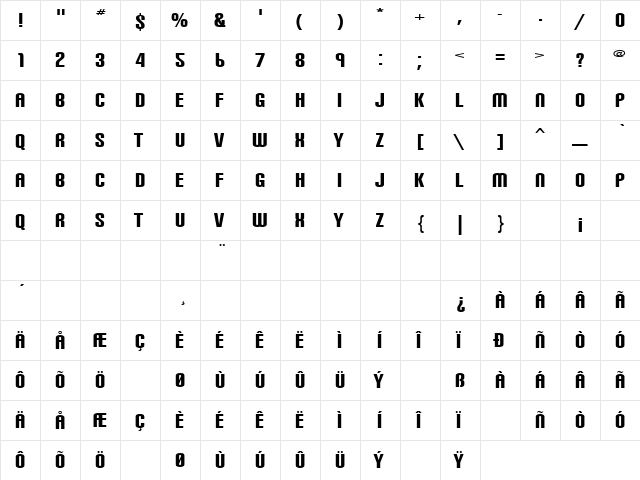
Carbon Block Regular
| Foundry | Larabie Fonts |
Design Context for Carbon Block Typeface
Carbon Block is a composed and adaptable typeface that performs quietly and consistently across a wide range of design contexts.